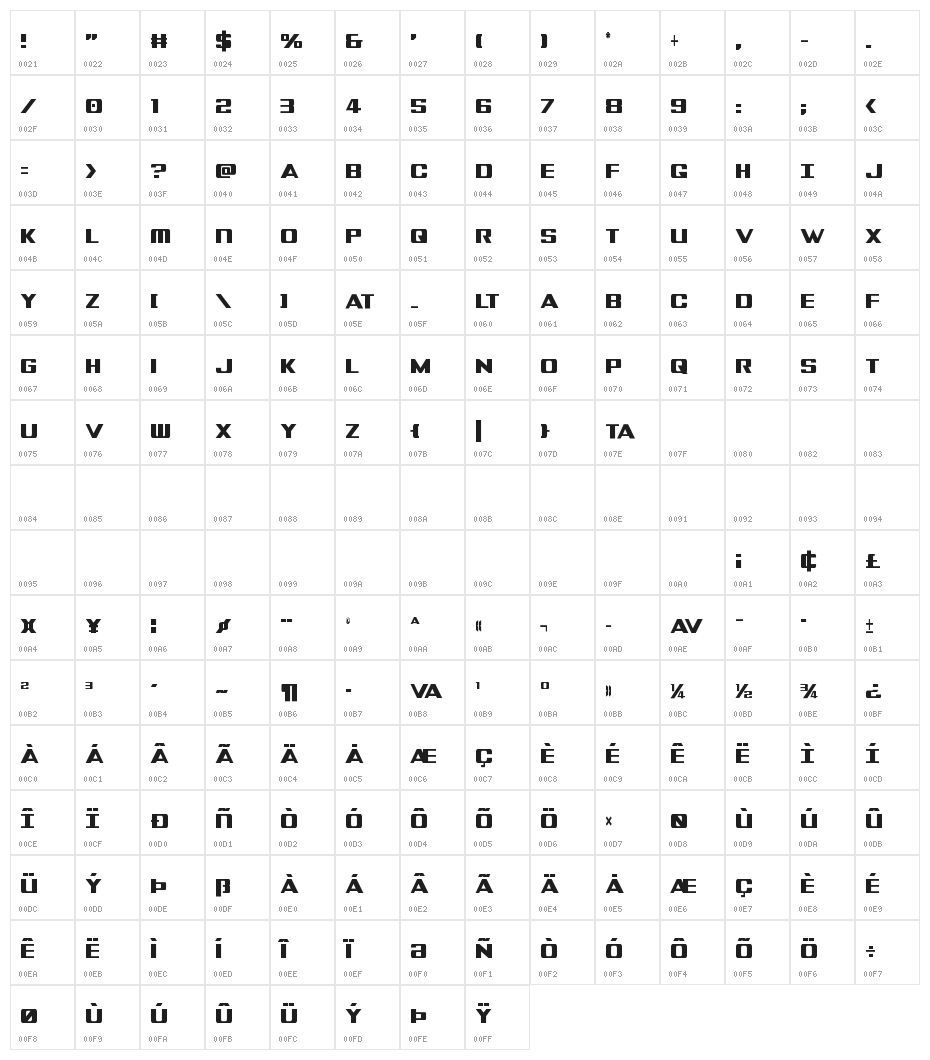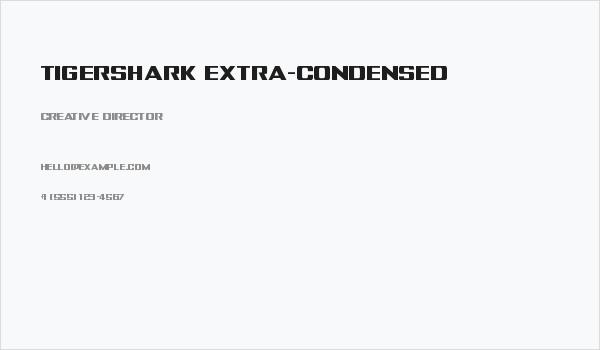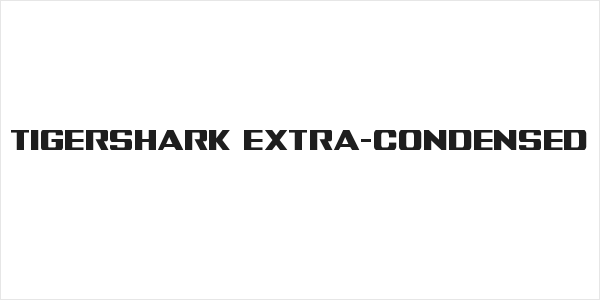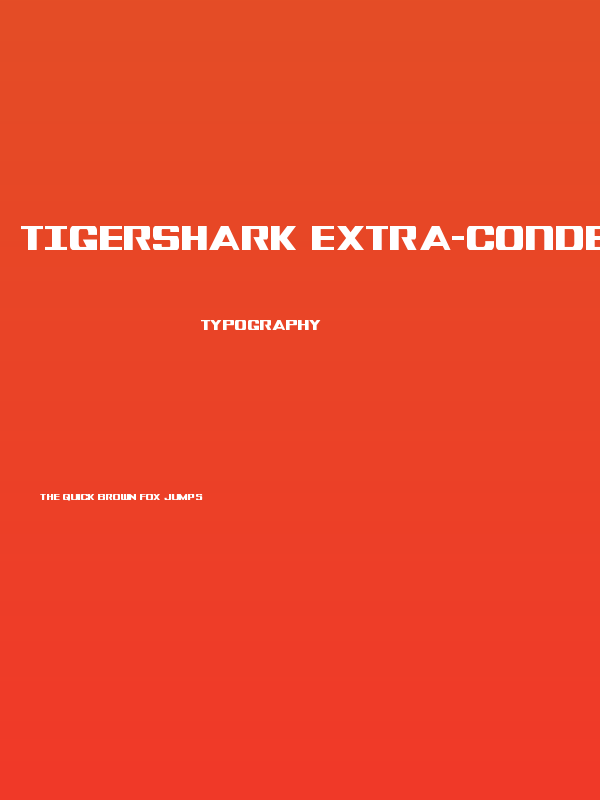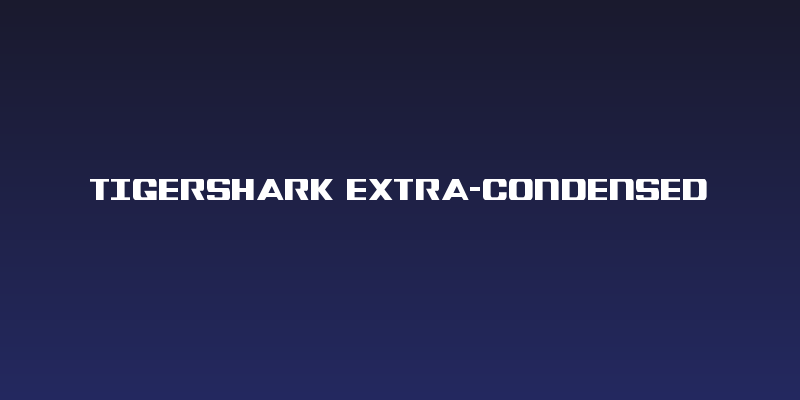
Tigershark Extra-Condensed Font
Tigershark Extra-Condensed Description
This font exhibits a bold and striking appearance with its extra-condensed letterforms. The characters are designed with a strong geometric influence, featuring sharp angles and clean lines that convey a sense of modernity and strength. The uppercase letters are particularly impactful, making them ideal for attention-grabbing headlines or titles. The numerals and special characters maintain the same boldness and geometric style, ensuring consistency across all text elements. The overall design is highly legible, even at smaller sizes, due to its clear and distinct shapes.
| Proposed Projects | Ideal for sports branding, posters, and dynamic headlines. |